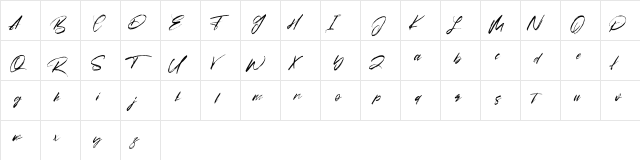
Arsitage Free Regular
| Foundry | MaulanaCreative |
| Designer | MaulanaCreative |
Design Context for Arsitage Free Typeface
Arsitage Free is a composed and adaptable typeface that performs quietly and consistently across a wide range of design contexts.